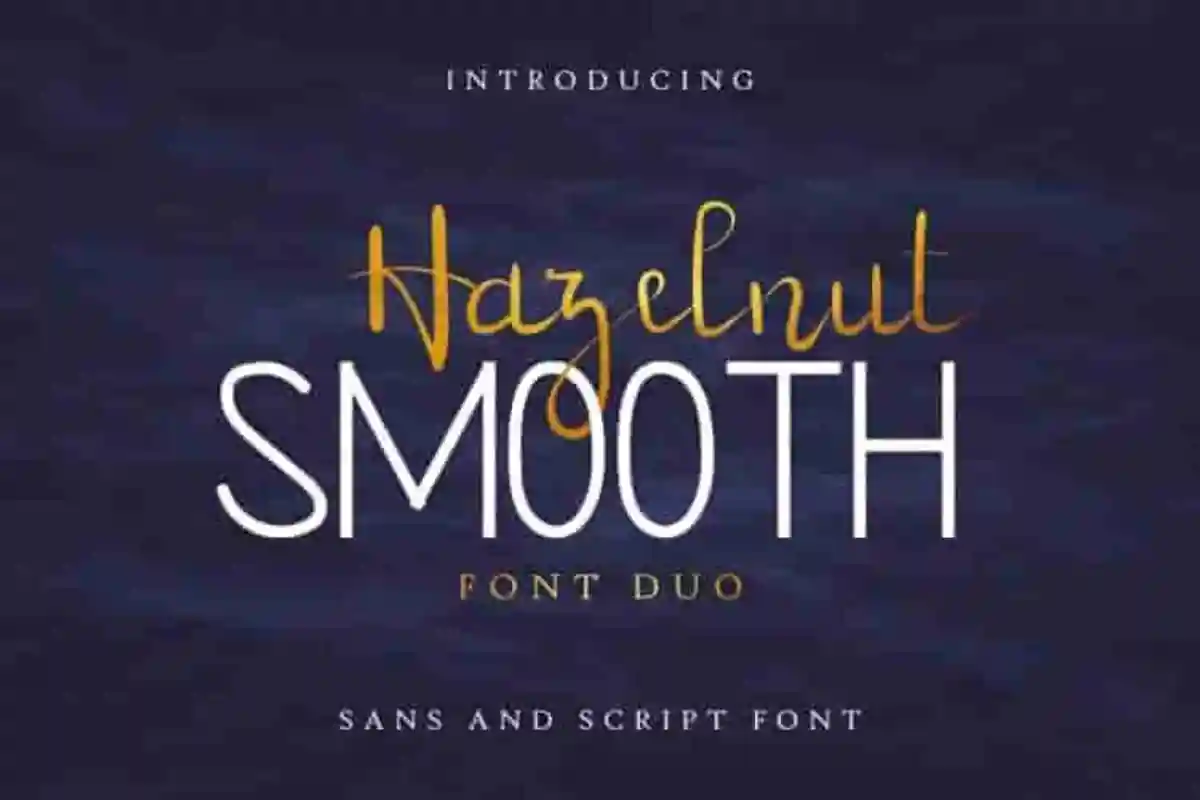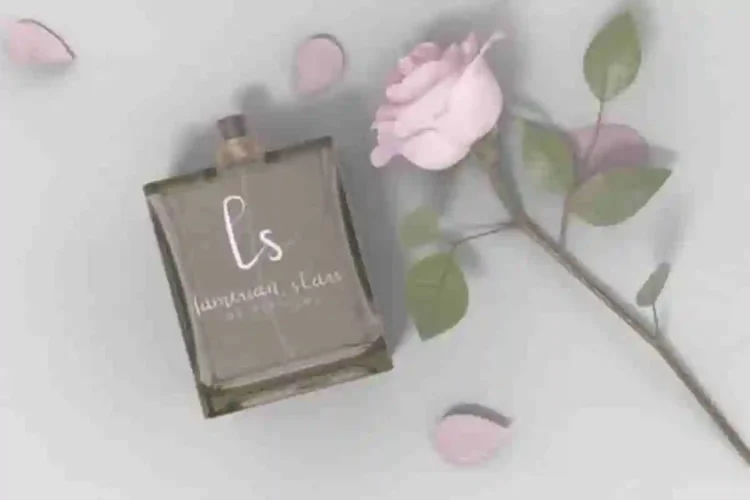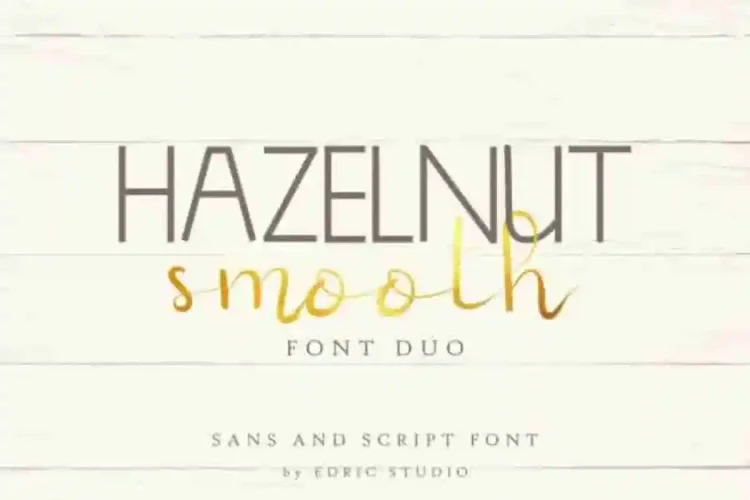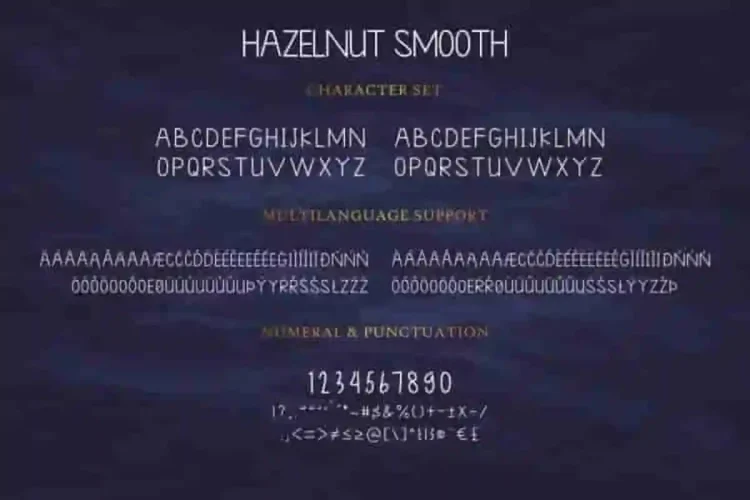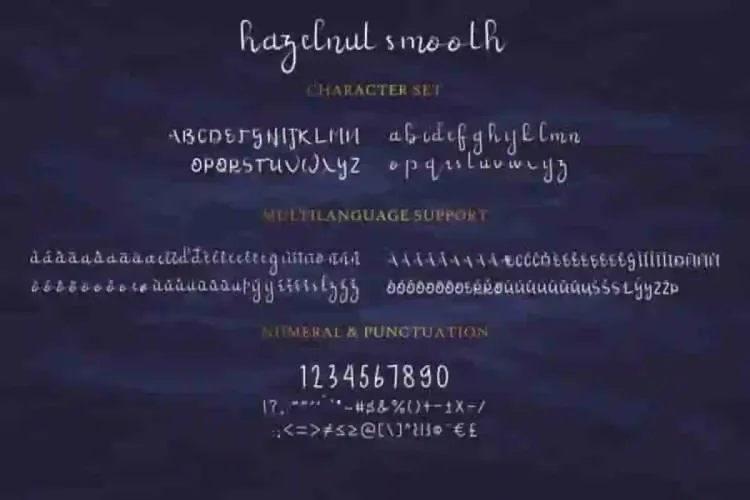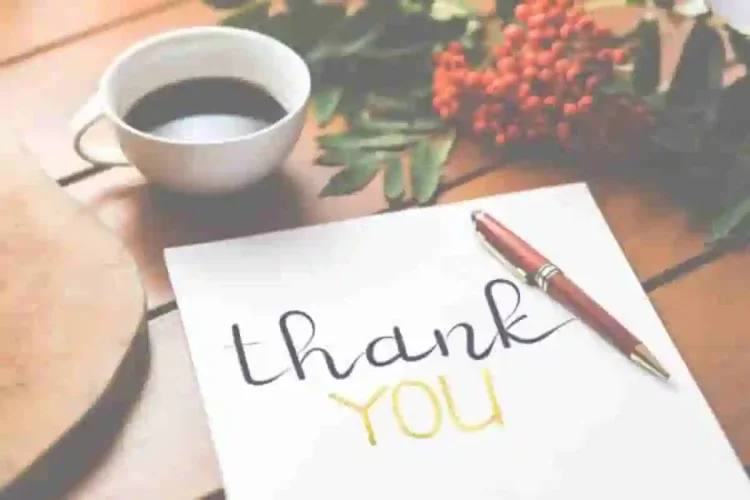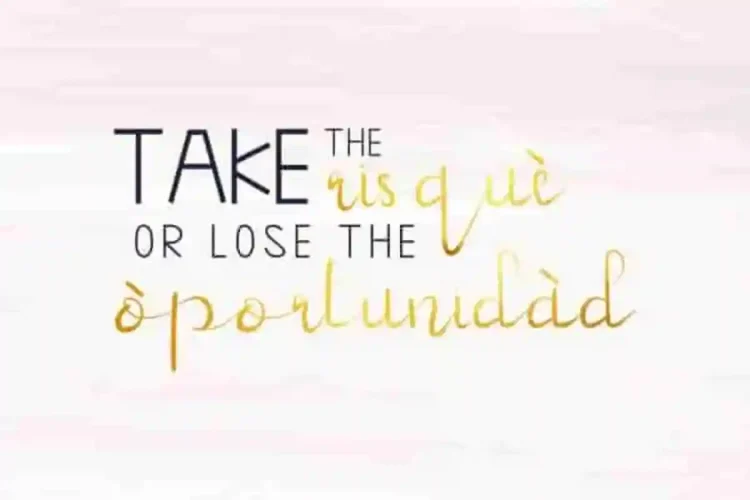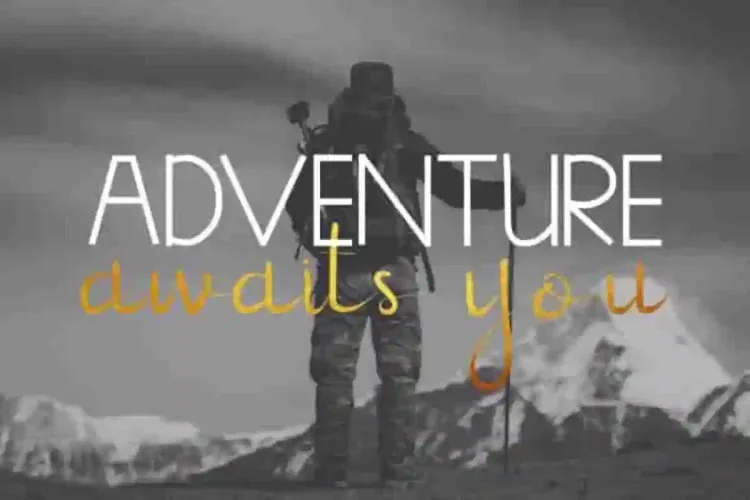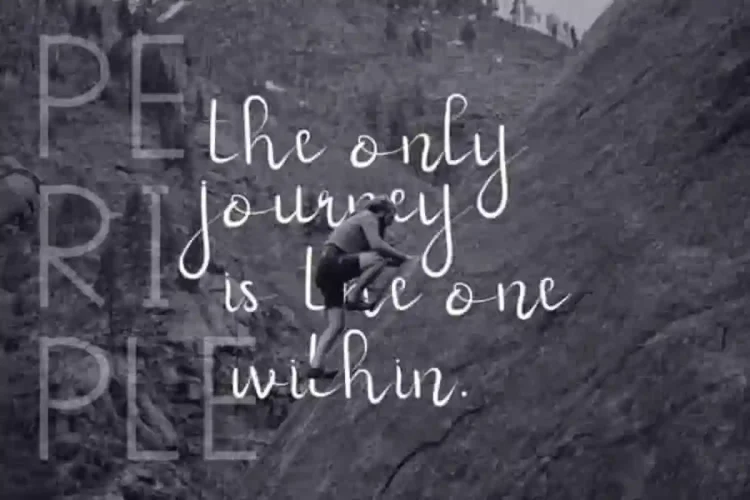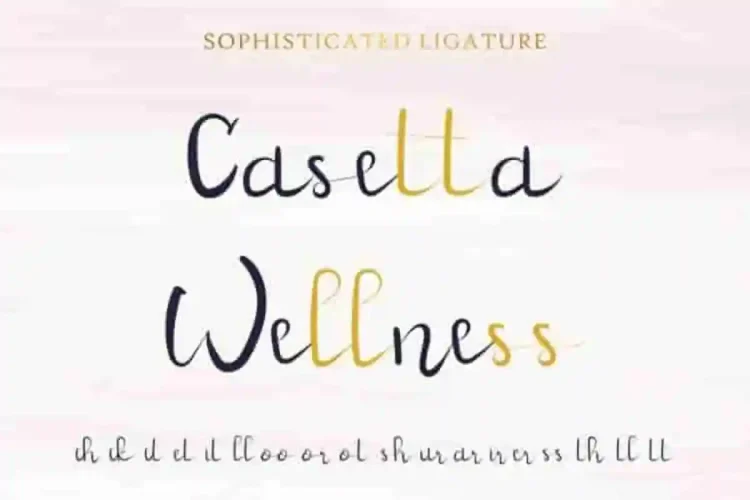
Hazelnut Calligraphy Smooth Font Duo
Hazelnut Smooth Calligraphy Font Duon is a handwritting font, handcrafted from our Studio here in, Indonesia. The artists/designers of this beautiful typeface is Saila.
Hazelnut Smooth Calligraphy Font Duo has 2 set of exclusive glyphs : Sans and Handwriting. It has been kerned and spaced proferly. This font will Work on PC & Mac with Simple installations. Accessible in the Adobe Illustrator, Adobe Photoshop, Adobe InDesign, even work on Microsoft Word.